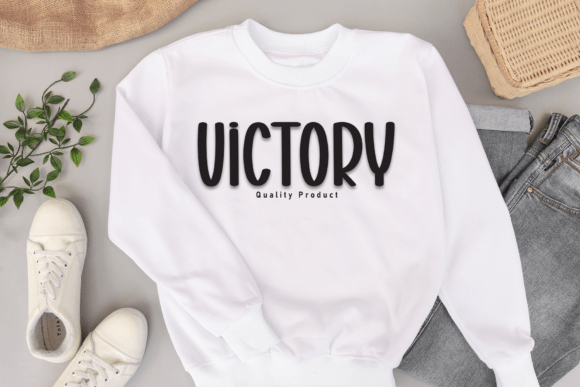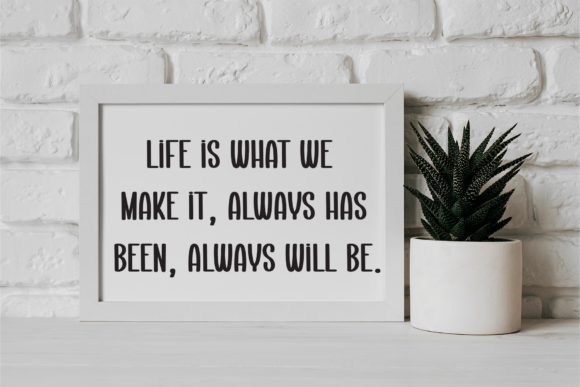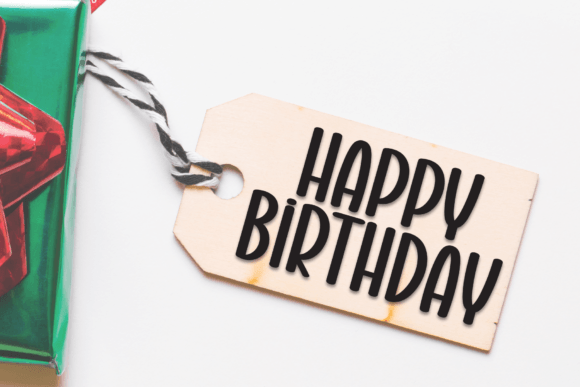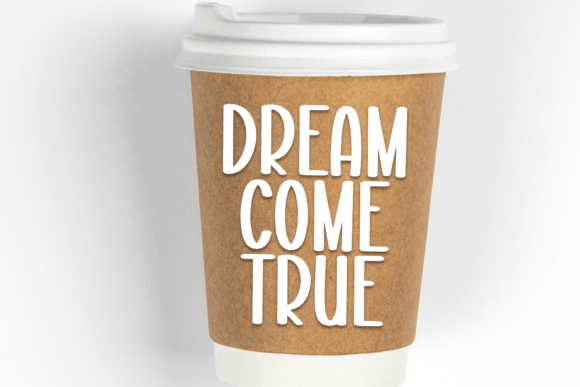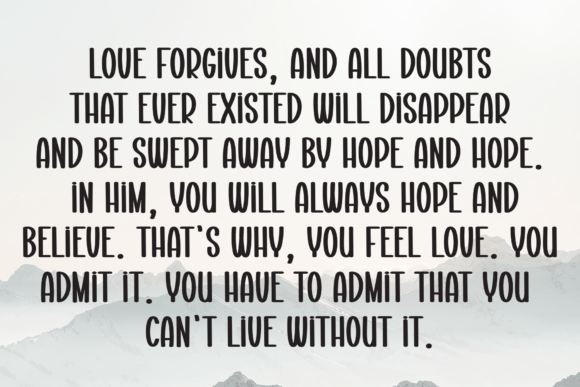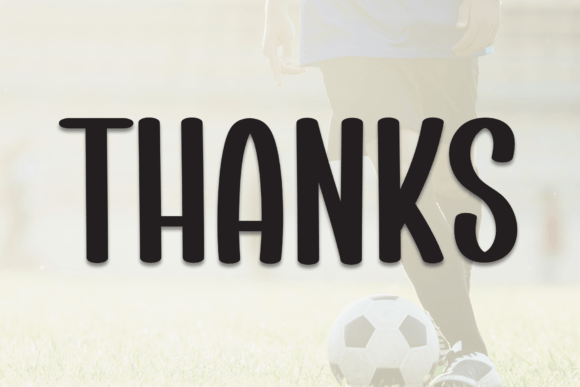
Introduction to Simple Football Font
As designers, we’ve all been there – staring at a blank canvas, trying to bring our creative vision to life. It’s that moment when the perfect font can make all the difference. For me, it’s the sound of a pen scratching across paper, the thrill of experimentation, and the satisfaction of watching a design come together. But, what happens when that perfect font is just out of reach?
Enter Simple Football Font, a charming and approachable handwritten font that’s about to become your new best friend. This high-quality font is a treasure trove of creative possibilities, waiting to elevate your next design project to new heights. Whether you’re working on a personal project or a commercial design, Simple Football Font is a valuable resource that’s sure to inspire.
With its unique, natural style and transparent background, this font is a free download waiting to be unleashed on your next creative project. And the best part? The only limit is your imagination!
Key Features of Simple Football Font
- High-quality, vector-based font design for a creative project
- Transparent background, allowing for easy customization and blending with other design elements
- Includes 20 unique characters, including numbers and letters, for a complete football-themed font set
- Designed with a clean and modern aesthetic, perfect for sports-themed projects, websites, and social media graphics
Honest Review: Simple Football Font
I recently had the opportunity to work with the Simple Football Font, and I must say it’s been a game-changer for my creative project. This high-quality font is perfect for any design that needs a sporty touch.
What I love about the Simple Football Font is its versatility. It can be used for a variety of design elements, from team logos to scoreboards, and even for creating eye-catching typography for event promotions. The transparent background makes it easy to use as a design resource, allowing me to customize it to fit my project’s needs.
Some of the features that stood out to me include:
- Easy to customize with a transparent background
- Perfect for creating a sporty and modern aesthetic
While the Simple Football Font is an excellent addition to any design arsenal, I do have a few limitations to note:
- Only available in a limited number of font styles
- Not suitable for complex, multi-line typography
- Some users may find the font too simple for certain design projects
Overall, I’m impressed with the Simple Football Font and would highly recommend it for any creative project that requires a sporty touch.
Simple Football Font
The Simple Football Font is suitable for a wide range of applications, including sports-related designs, creative projects, and professional documents. It’s also a great resource for designers who need a high quality and versatile font for their work.
Alternatives to Simple Football Font
1. Dribbble’s Futura Font
Futura is a high-quality sans-serif font ideal for a creative project that requires a modern and sleek design. It features a transparent background and is perfect for logos, typography, and other design elements. Futura can be downloaded for free and is a popular design resource among designers.
Compared to Simple Football Font, Futura has a more geometric and futuristic feel, making it suitable for projects that require a cutting-edge look. While Simple Football Font is more playful and casual, Futura is more professional and sophisticated.
Q: Does Simple Football Font have a transparent background?
Yes, Simple Football Font is a transparent font, meaning it has a transparent background. This makes it easy to use on any background color or image without worrying about the font being obscured.